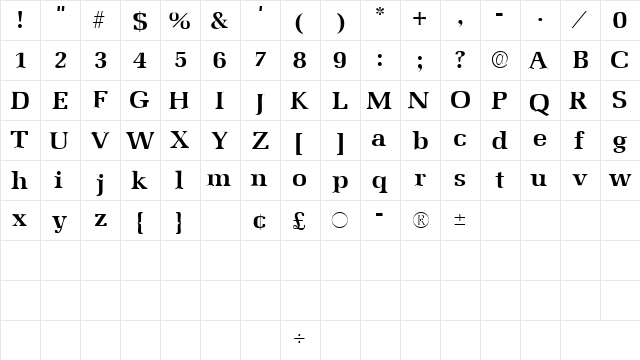
BroccusSSK Regular
Design Context for BroccusSSK Typeface
BroccusSSK offers clean, dependable letterforms without strong stylistic allegiance, making it a practical choice for designers who need flexibility.